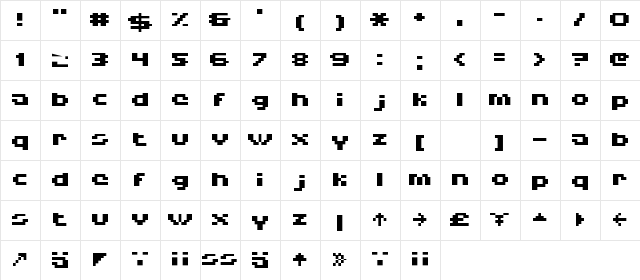
HISKYFLIPPERLOWBOLD Regular
Design Context for HISKYFLIPPERLOWBOLD Typeface
HISKYFLIPPERLOWBOLD takes a measured approach to typography — its balanced proportions and neutral character make it a reliable workhorse for both digital and print work. The heavy weight commands attention and anchors typographic hierarchies.
Pro Tip: Use HISKYFLIPPERLOWBOLD in both headline and body roles to test its range before committing to a single application.